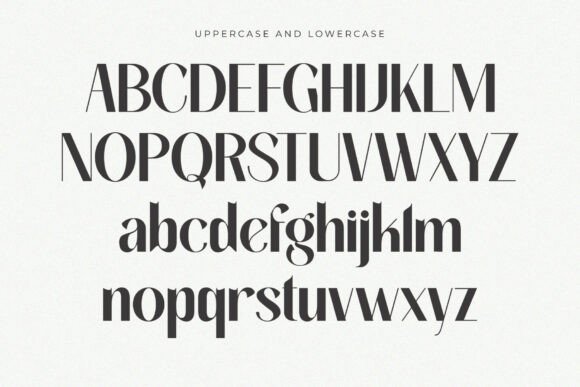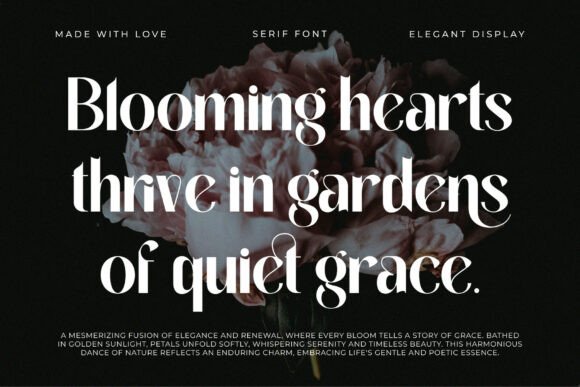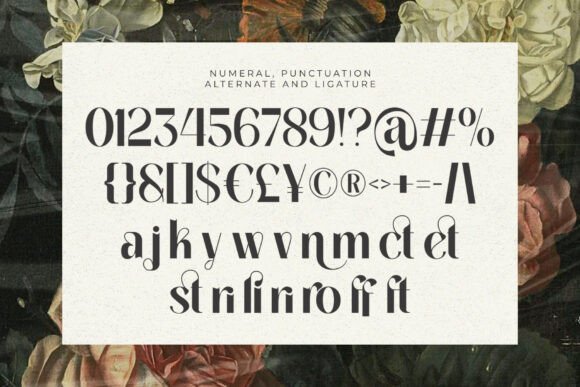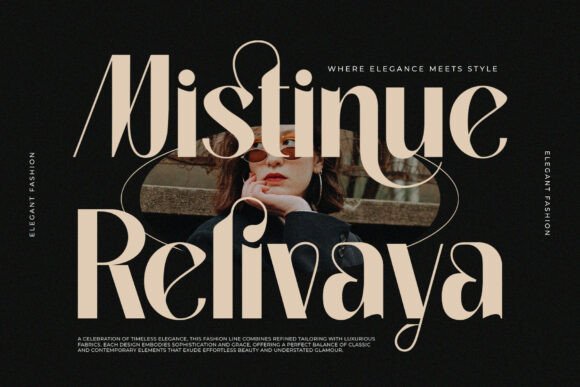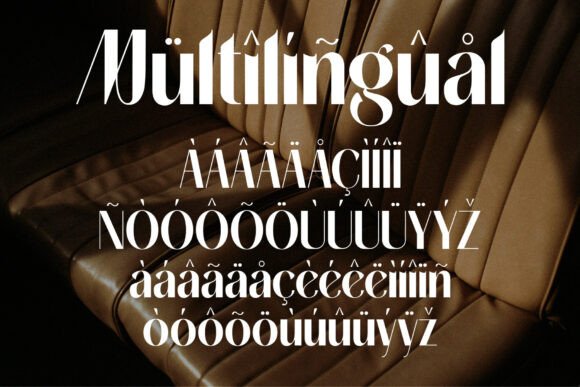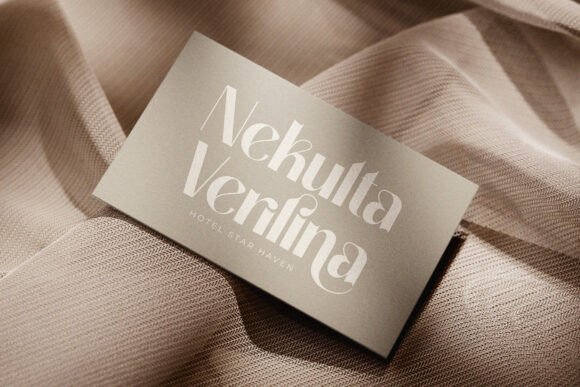
Unlocking Luxurious Sophistication: A Deep Dive into Celina Regular Font
Have you ever been in the midst of working on a project, and suddenly, you’re struck by a wave of uncertainty? You’re not alone! I recall a particularly daunting experience while designing a wedding invitation suite. My client wanted a font that exuded elegance, sophistication, and a touch of luxury. After hours of scouring through font libraries, I stumbled upon Celina Regular Font. It was as if the design gods had smiled upon me! In this article, we’ll explore the world of Celina, a truly luxurious serif font that’s sure to elevate your designs.
A Personal Review: What I Love About Celina
So, what makes Celina stand out from the crowd? Here are a few aspects that I absolutely adore:
- ✨ Elegant curves and stylish ligatures that add a touch of sophistication to any project
- ✅ Refined contrast and timeless feel, making it perfect for high-end branding and editorials
- 💫 Full multilingual support, ensuring that your designs can reach a global audience
- 🔍 Valuable alternates and stylistic sets to give you creative flexibility
Honest Review: A Few Quirks to Consider
While Celina is an exceptional font, there are a few minor quirks to keep in mind:
- 🤔 Some users might find the font’s elegance a bit too refined for casual projects. However, this is a minor trade-off for the level of sophistication it brings to high-end designs.
- ⚠️ As with any font, it’s essential to ensure you’re using the correct character set and OpenType features to get the most out of Celina’s capabilities.
The Story Behind Celina: Designer Inspiration
While the true story behind Celina’s creation might be a mystery, let’s imagine a tale of inspiration. Meet Emma, a talented type designer with a passion for luxury and elegance. Emma drew inspiration from the world of high-end fashion, where sophistication and refinement reign supreme. With Celina, Emma aimed to create a font that would bring a touch of luxury to every design project.
| Font Name | Celina Regular Font |
| Author | Inviline |
| What type of projects is Celina best suited for? | Celina is perfect for high-end branding, fashion editorials, wedding invitations, and luxury packaging. |
| Does Celina support multilingual languages? | Yes, Celina includes full multilingual support, making it suitable for global design projects. |